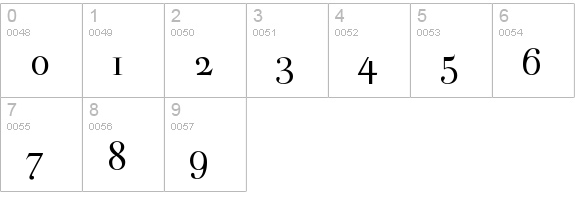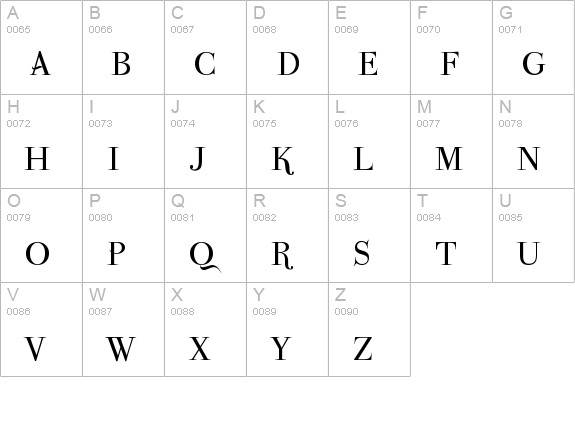
ParmaPetit-Normal is the standard, neutral variant in the ParmaPetit typeface family \xE2\x80\x94 well suited to general body text, paragraphs, and standard typographic work.
ParmaPetit-Normal is a versatile and elegant font that effortlessly combines sophistication with a modern twist. Its clean lines and balanced proportions make it a perfect choice for a variety of design projects, from branding and logos to invitations and editorial layouts. This font exudes a timeless charm, making it suitable for both formal and informal contexts. Its classic letterforms are given a contemporary edge with subtle variations and delicate curves. The result is a font that is both stylish and approachable, making it an ideal choice for a wide range of applications. One of the most appealing aspects of ParmaPetit-Normal is that it is freely available to download at FontsMarket.com. This means that designers and creatives can enjoy the benefits of this stunning font without any financial constraints. Whether you are a professional designer or a hobbyist, this font is a valuable addition to your font library. ParmaPetit-Normal is a typeface that effortlessly captures attention and conveys a sense of elegance and sophistication. Its versatility and timeless appeal make it a go-to choice for designers looking to create visually stunning and impactful designs. With its free availability on FontsMarket.com, there's no reason not to give this font a try and elevate your design projects to new heights.